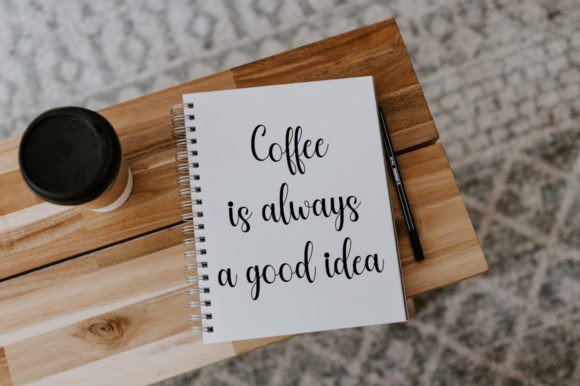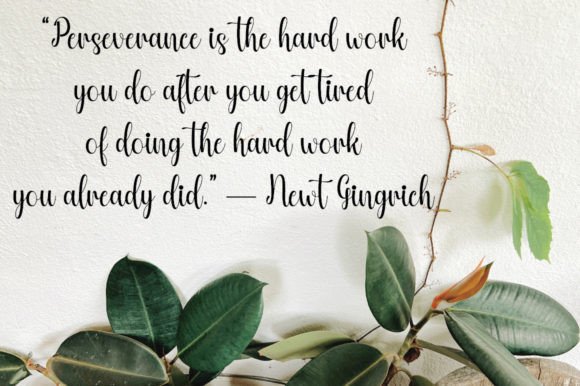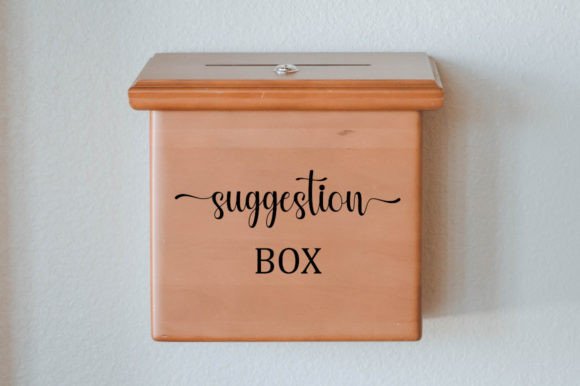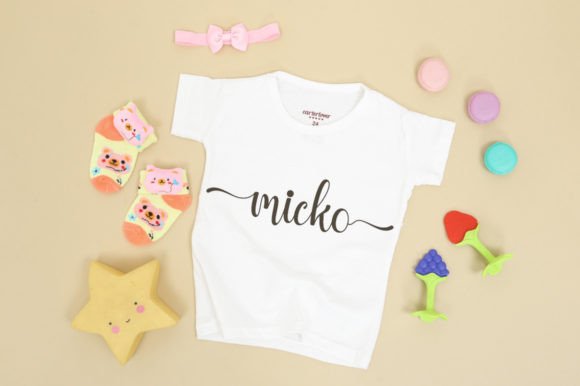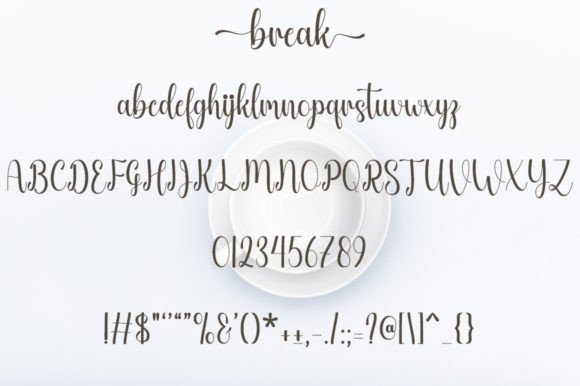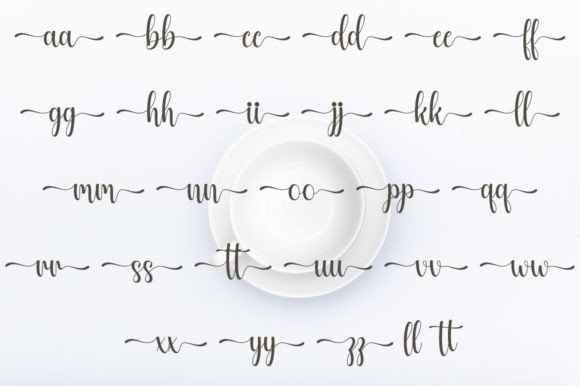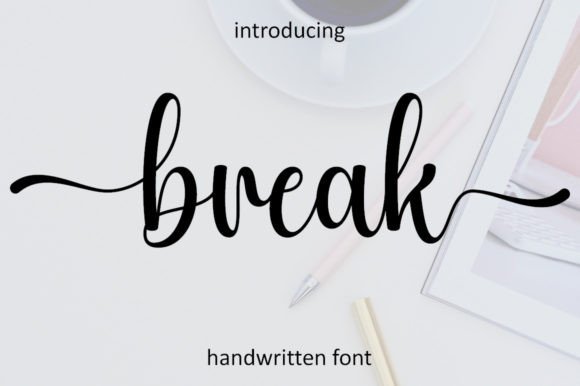
Introducing Break Font: Elevate Your Designs with Elegance and Sophistication
In the world of typography, a well-chosen font can make all the difference in transforming a design from ordinary to extraordinary. For designers and crafters seeking to add a touch of elegance and sophistication to their projects, the Break Font is an exceptional choice. This stylish and incredibly elegant handwritten font is perfect for a variety of applications, including wedding invitations, thank you cards, quotes, greeting cards, logos, business cards, and more.
What Makes Break Font Stand Out?
Break Font boasts a unique, handwritten aesthetic that exudes refinement and poise. Its elegant strokes and beautiful swashes make it an ideal choice for designs that require a personal touch. Whether you’re working on a wedding invitation, a branding project, or a simple greeting card, Break Font is sure to impress.
One of the key features that sets Break Font apart is its PUA (Private Use Area) encoding. This means that users can easily access all the glyphs and swashes, allowing for greater flexibility and creativity in their designs. With Break Font, you can effortlessly add a touch of sophistication and whimsy to your projects.
Break Font’s versatility makes it an excellent addition to any designer’s toolkit. Here are just a few examples of how you can use this beautiful font:
- Wedding Invitations: Add a touch of romance and elegance to your wedding invitations with Break Font. Its beautiful swashes and elegant strokes make it perfect for formal and informal wedding designs.
- Thank You Cards: Express your gratitude in style with Break Font. This font is ideal for creating heartfelt and visually appealing thank you cards for any occasion.
- Quotes and Typography: Break Font is a great choice for showcasing inspirational quotes, lyrics, or poems. Its elegant strokes and swashes add a touch of sophistication to any typographic design.
- Greeting Cards: Create beautiful and personalized greeting cards for birthdays, holidays, or special occasions with Break Font.
- Logos and Branding: Use Break Font to create a unique and memorable logo for your business or brand. Its elegant aesthetic makes it perfect for businesses that want to convey a sense of sophistication and refinement.
- Business Cards: Stand out from the crowd with Break Font on your business cards. This font is sure to make a lasting impression on potential clients and partners.
Tips for Using Break Font Effectively
To get the most out of Break Font, here are a few tips to keep in mind:
- Experiment with Swashes: Break Font’s PUA encoding allows you to access a range of beautiful swashes. Experiment with different swashes to add a unique touch to your designs.
- Mix and Match: Don’t be afraid to combine Break Font with other fonts to create a unique look. This font pairs well with both serif and sans-serif fonts.
- Pay Attention to Spacing: Make sure to adjust the spacing between letters and words to create a balanced and visually appealing design.
Break Font is a stunning and elegant handwritten font that is sure to elevate your designs to the next level. Its PUA encoding, beautiful swashes, and elegant strokes make it perfect for a variety of applications, from wedding invitations to logos and branding. Whether you’re a designer or crafter, Break Font is an excellent addition to your toolkit. With its versatility and sophistication, this font is sure to become a go-to choice for any project that requires a touch of elegance and refinement.